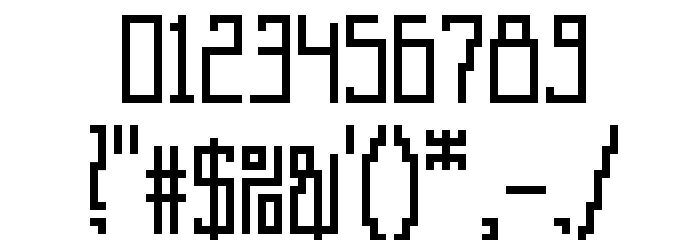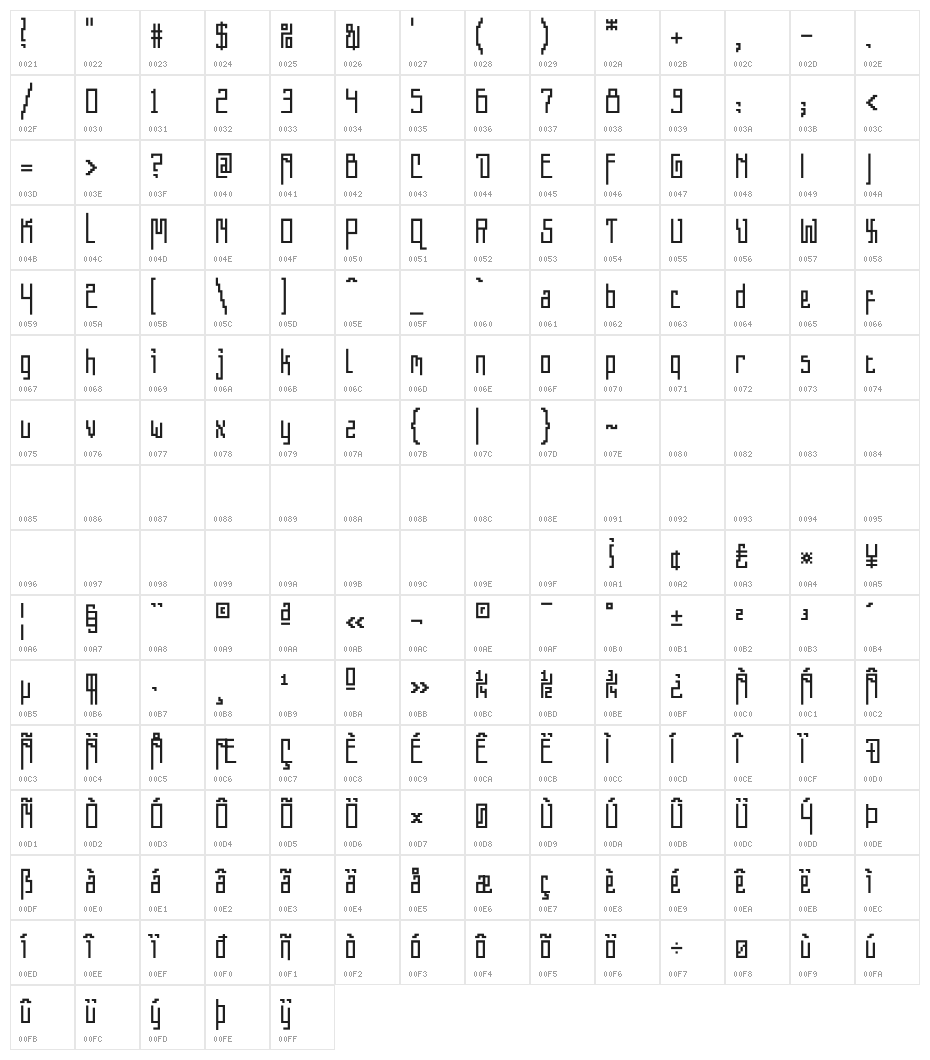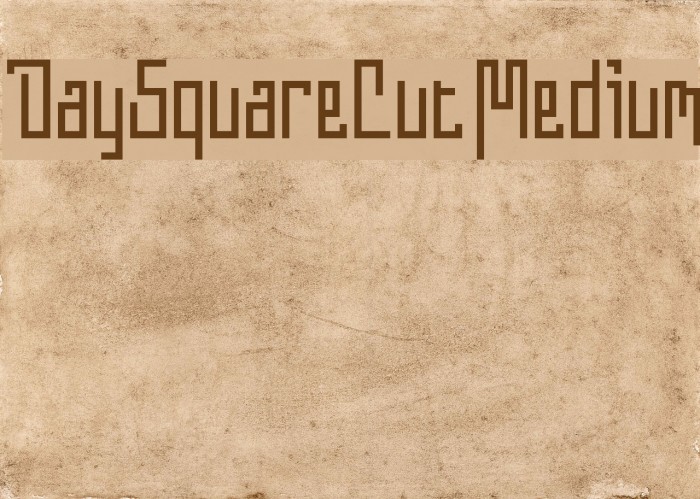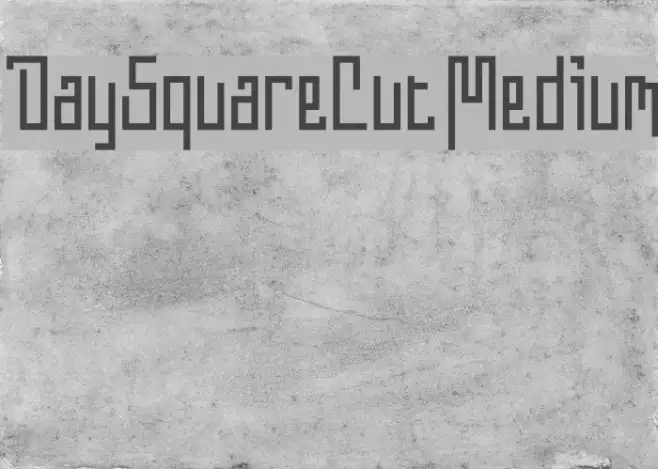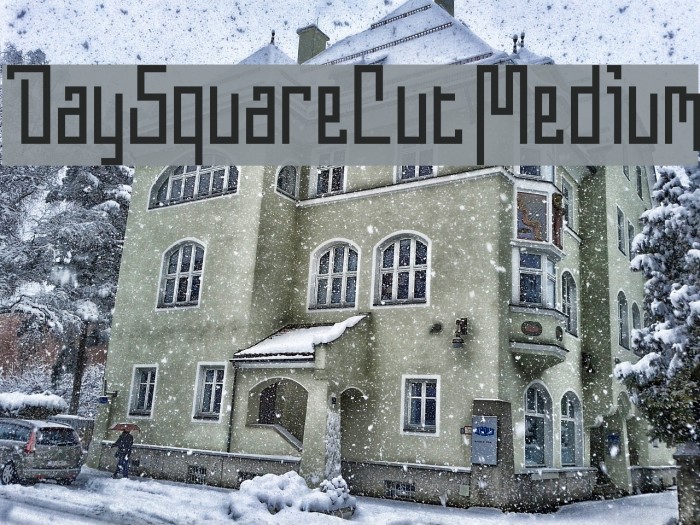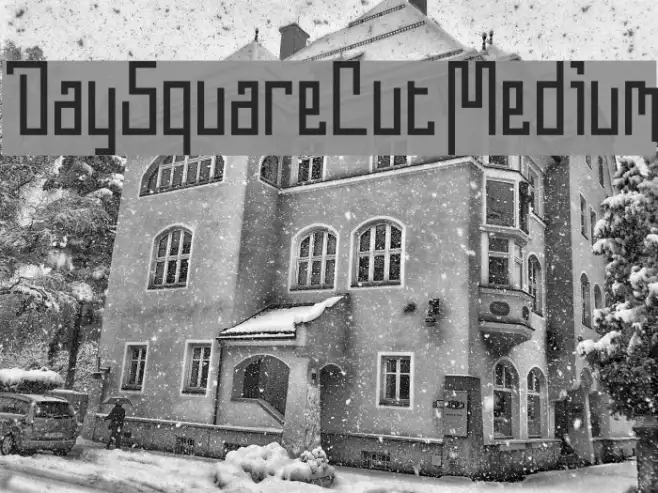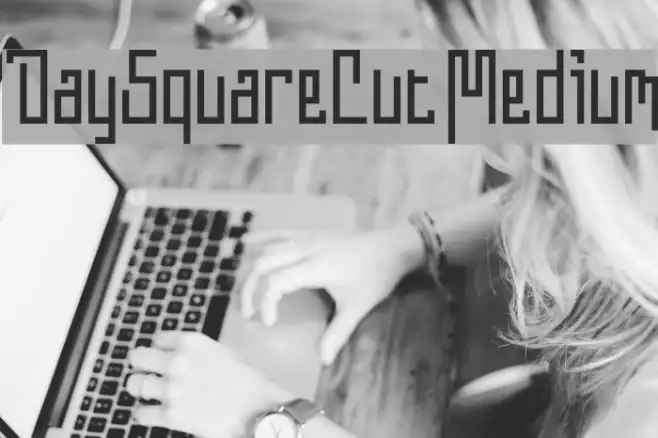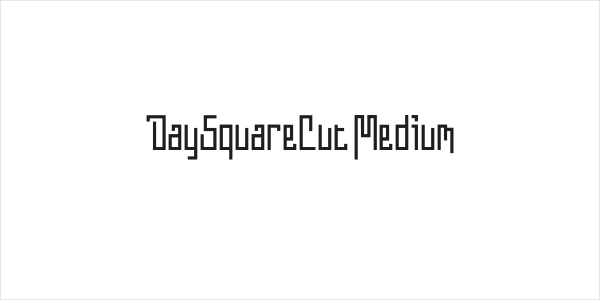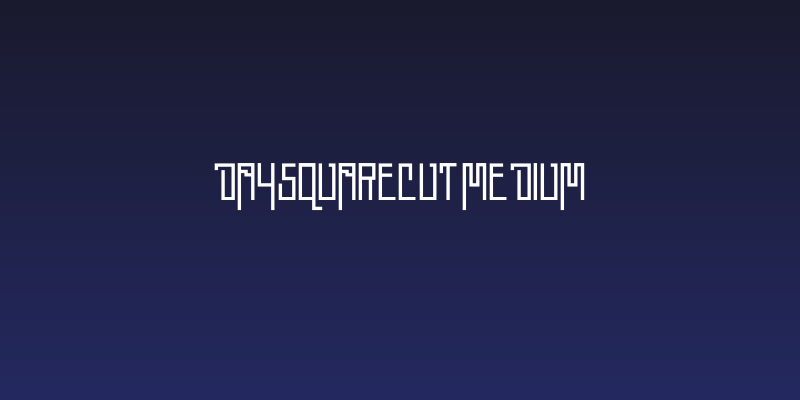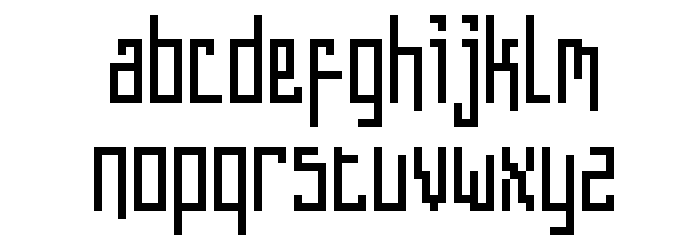
DaySquareCut Medium Font
DaySquareCut Medium Description
This font features a distinct, geometric style with sharp, angular edges and a blocky structure. Each character is designed with a consistent height and width, creating a uniform appearance across all letters and numbers. The uppercase and lowercase letters maintain a similar width, contributing to the font's cohesive look. The numerals are clear and easily distinguishable, while the special characters are crafted to match the overall aesthetic. The font's design is reminiscent of digital or pixelated text, making it suitable for modern and tech-oriented projects. Its unique style ensures high readability while maintaining a strong visual impact.
Use CaseLogos, Headlines, Digital interfaces
Proposed ProjectsIdeal for tech-themed designs, digital art, video game interfaces, and modern branding.